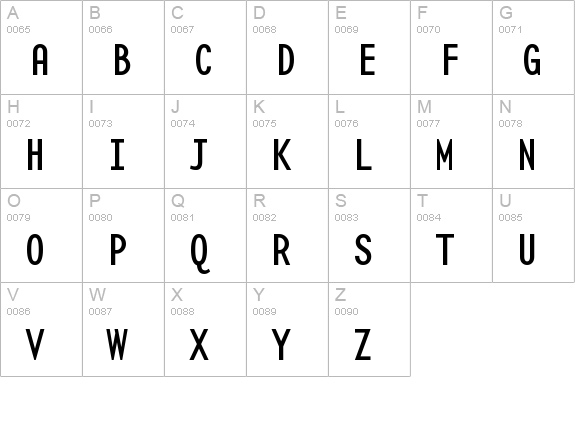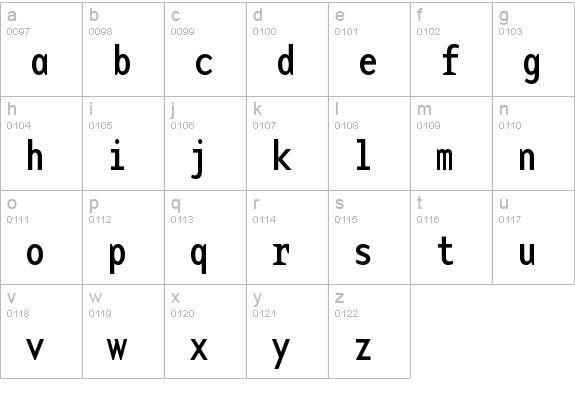
BaseMonoNarrowReg Regular Font Details
BaseMonoNarrowReg Regular is the standard, neutral variant in the BaseMonoNarrowReg typeface family \xE2\x80\x94 well suited to general body text, paragraphs, and standard typographic work.
BaseMonoNarrowReg Regular font is a sleek and modern typeface that exudes sophistication and professionalism. With its clean lines and narrow design, it is perfect for conveying a sense of elegance and precision in any project. This versatile font is ideal for use in various design applications, from branding to editorial design. The BaseMonoNarrowReg Regular font is available for free download at FontsMarket.com, making it accessible to designers and creatives who are looking to enhance their projects with a stylish and contemporary typeface. Whether you're working on a website, logo, or printed material, this font is sure to make a statement and elevate your design to the next level. Embrace the clean and refined aesthetic of BaseMonoNarrowReg Regular font and add a touch of sophistication to your projects today. Download it for free at FontsMarket.com and discover the endless possibilities of this versatile typeface.